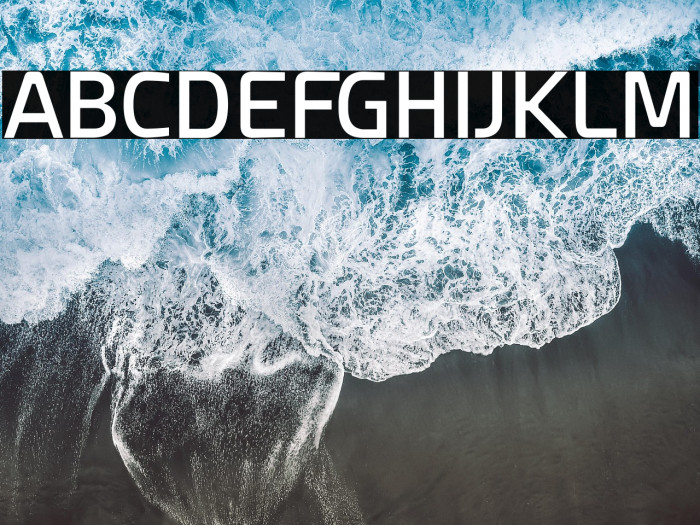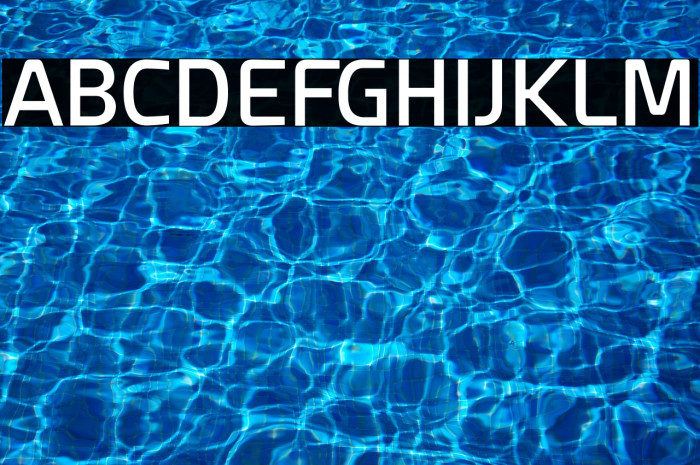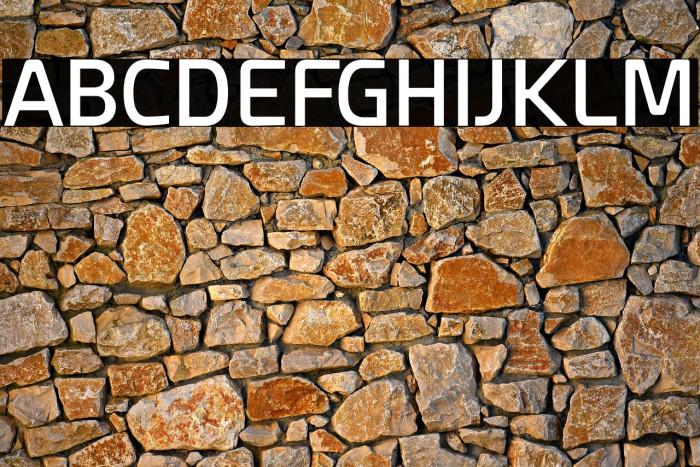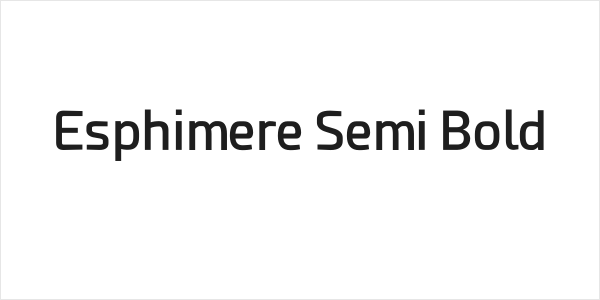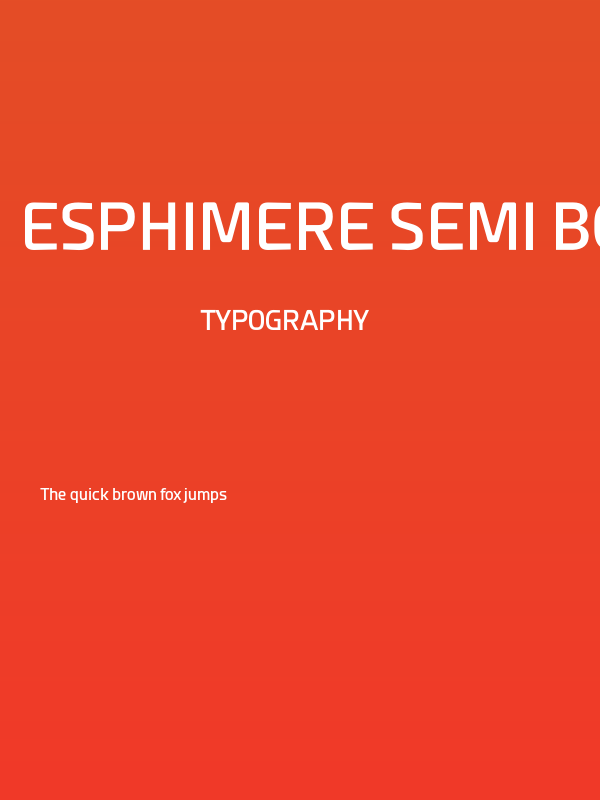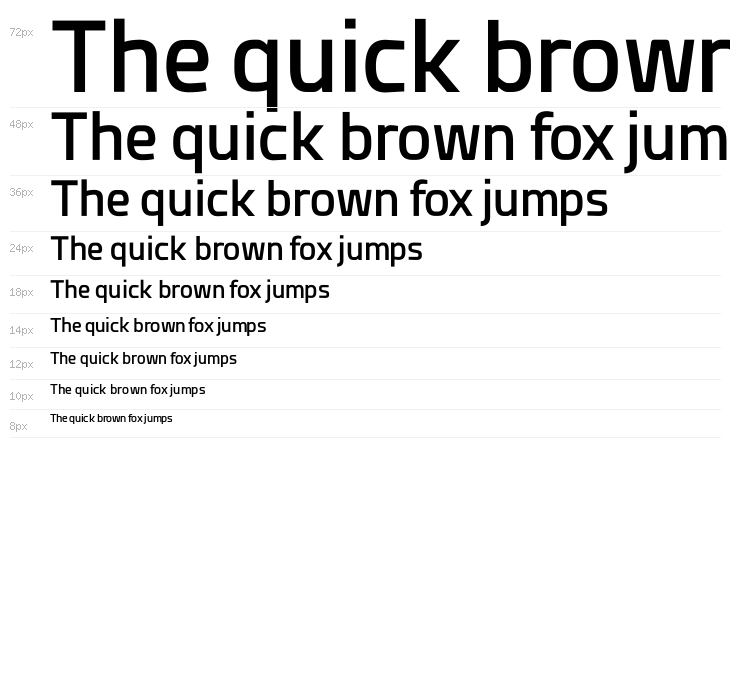
Esphimere Semi Bold Font
Esphimere Semi Bold Description
This typeface features a clean and modern sans-serif design with a semi-bold weight, offering a balanced and versatile appearance. The characters are crafted with precision, showcasing uniform stroke widths that contribute to its contemporary aesthetic. The uppercase and lowercase letters maintain a consistent style, ensuring readability and clarity. The numerals and special characters are well-integrated, providing a cohesive look across all elements. This font is suitable for a wide range of applications, from digital interfaces to print media, due to its legibility and stylish design.
| Proposed Projects | Ideal for branding, web design, advertising, and editorial layouts. |